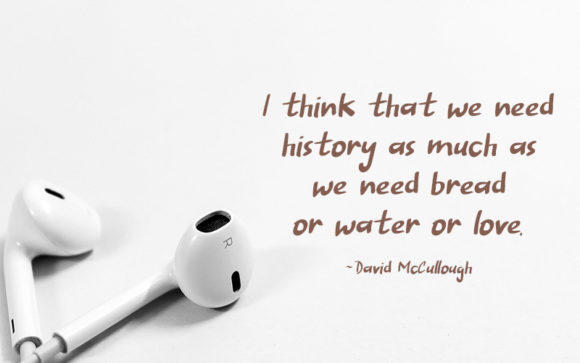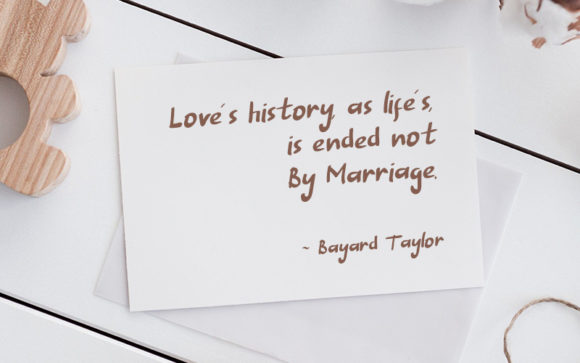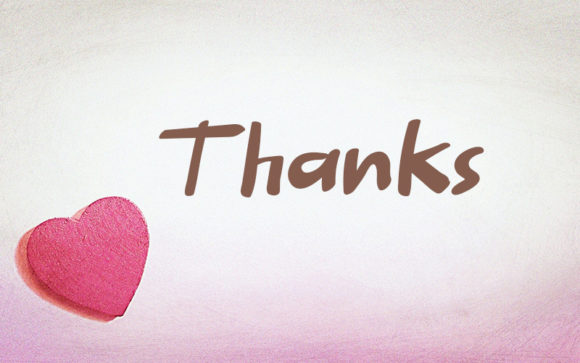
Sebuah Cerita Font
About Sebuah Cerita Font
Sebuah Cerita is a bold and strong handwritten font. Whether you’re looking for fonts for Instagram or calligraphy scripts for DIY projects, Sebuah Cerita will turn any creative idea into a true piece of art!